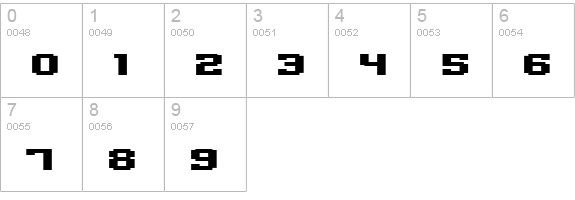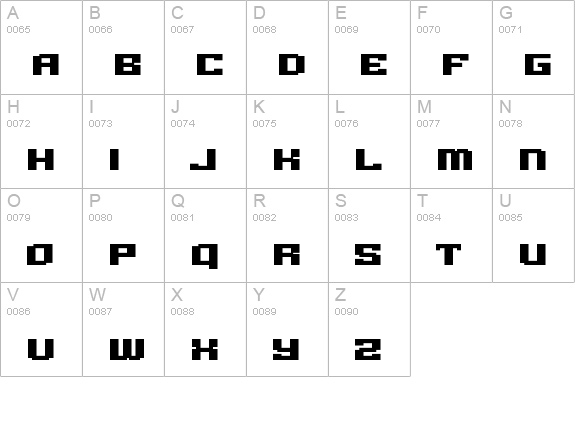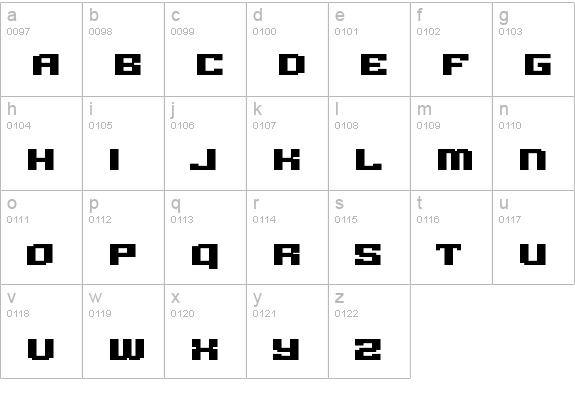
Gargantua BTN Font Details
Gargantua BTN is a bold and eye-catching font that commands attention with its strong, impactful presence. This versatile typeface exudes a sense of power and authority, making it ideal for headlines, titles, and other display purposes. With its unique design and distinctive style, Gargantua BTN is sure to make a statement in any project. What's more, Gargantua BTN is available for free download at FontsMarket.com, making it easily accessible to designers and creatives looking to add a touch of boldness to their work. Whether you're working on a branding project, poster design, or any other creative endeavor, Gargantua BTN is a fantastic choice that will help your text stand out and make a lasting impression. Download this striking font today and unleash its visual impact in your next design project.